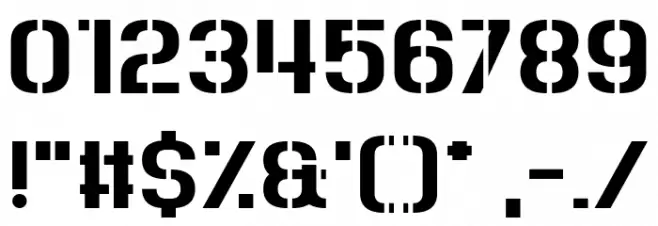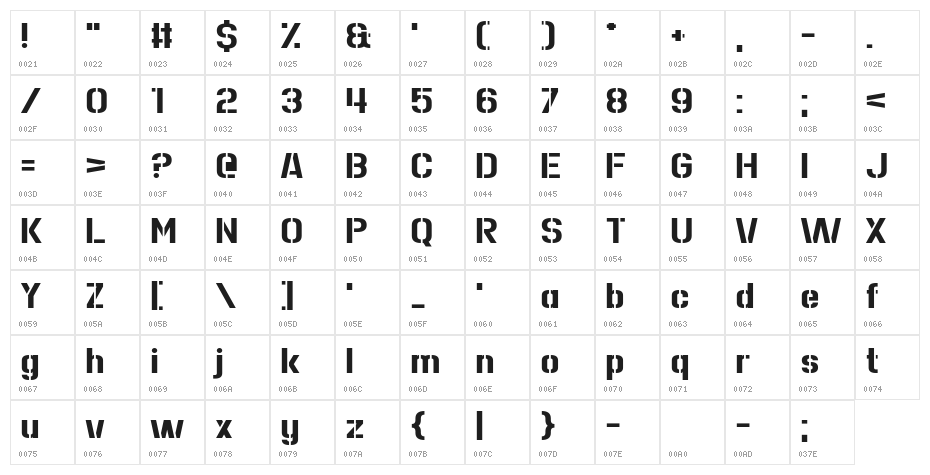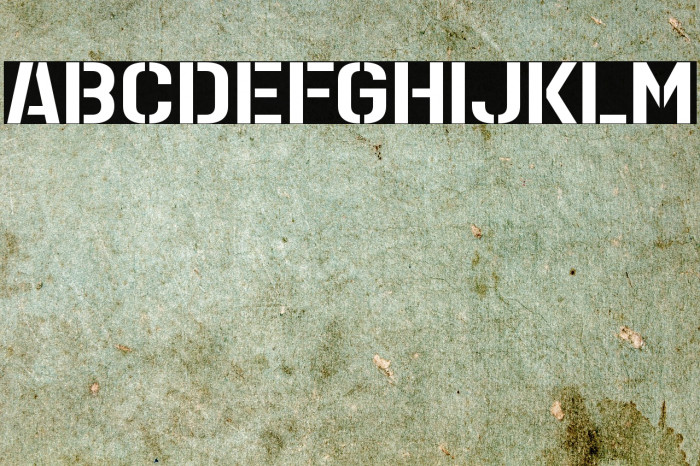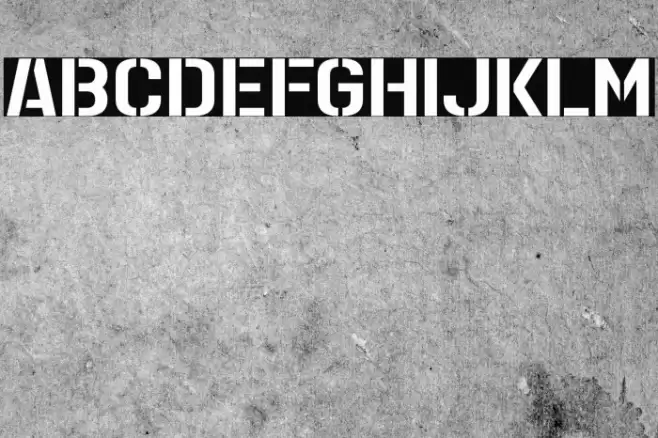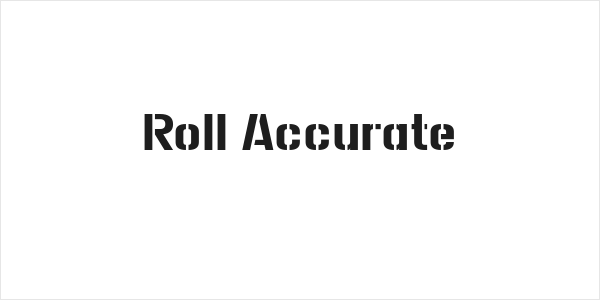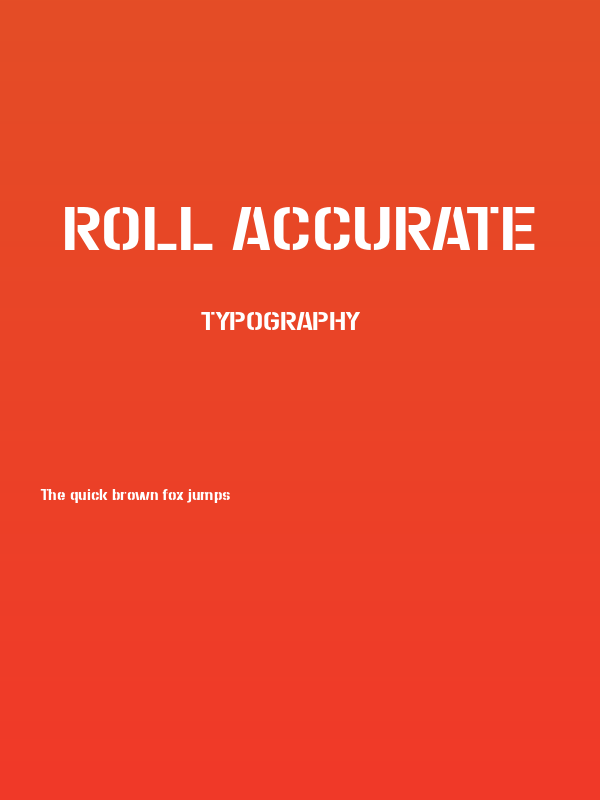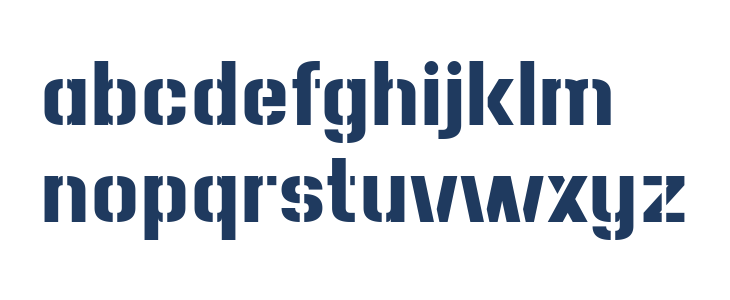
Roll Accurate Font
Roll Accurate Description
This font features a bold, geometric design with a distinct stencil-like appearance. The characters are constructed with clean, sharp edges and consistent stroke widths, giving it a modern and industrial feel. The uppercase and lowercase letters maintain a uniform height, enhancing readability while adding a unique aesthetic. The numerals and special characters follow the same design principles, ensuring cohesion across all glyphs. This font's style is particularly suited for projects that require a strong, impactful visual presence.